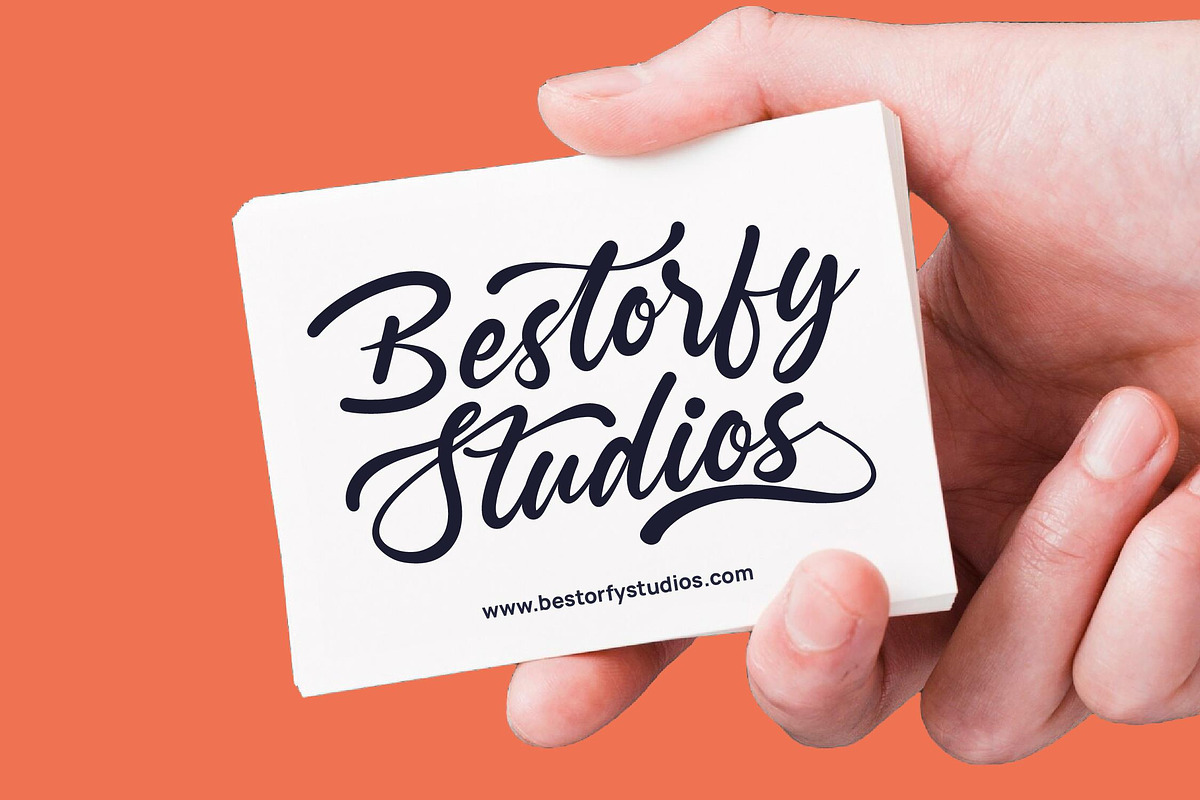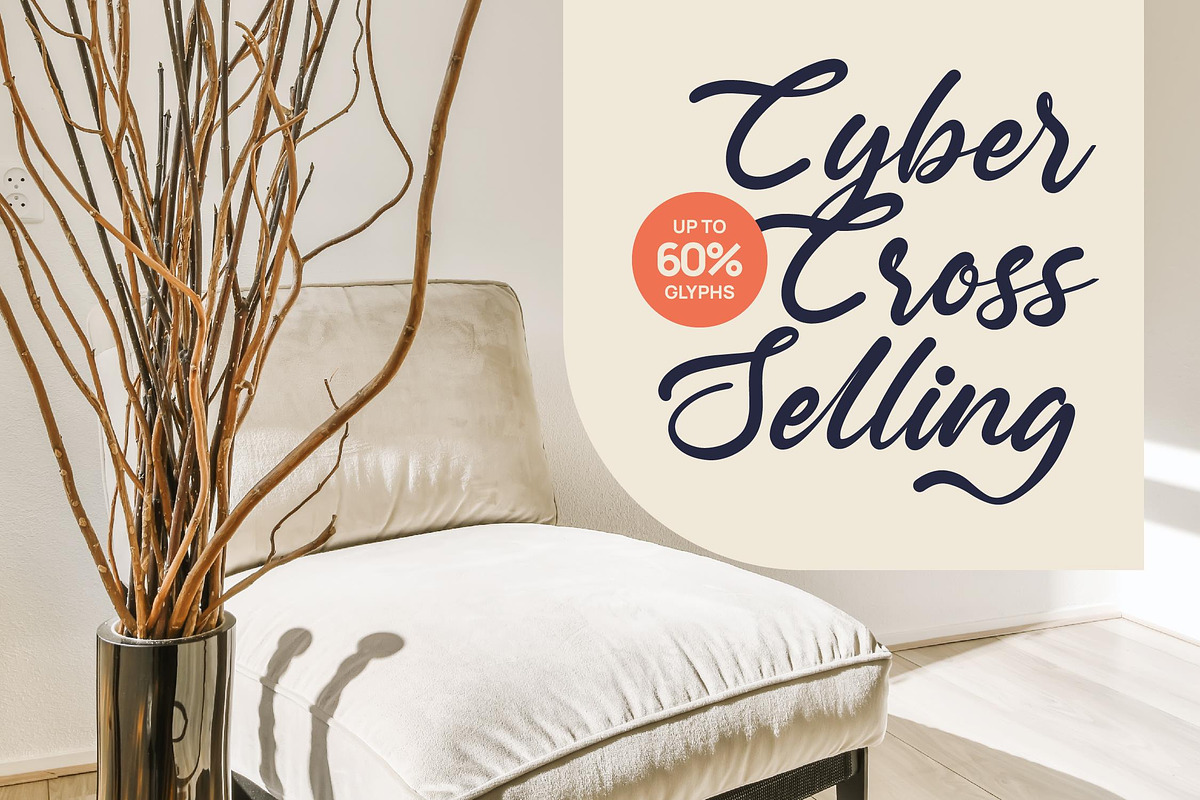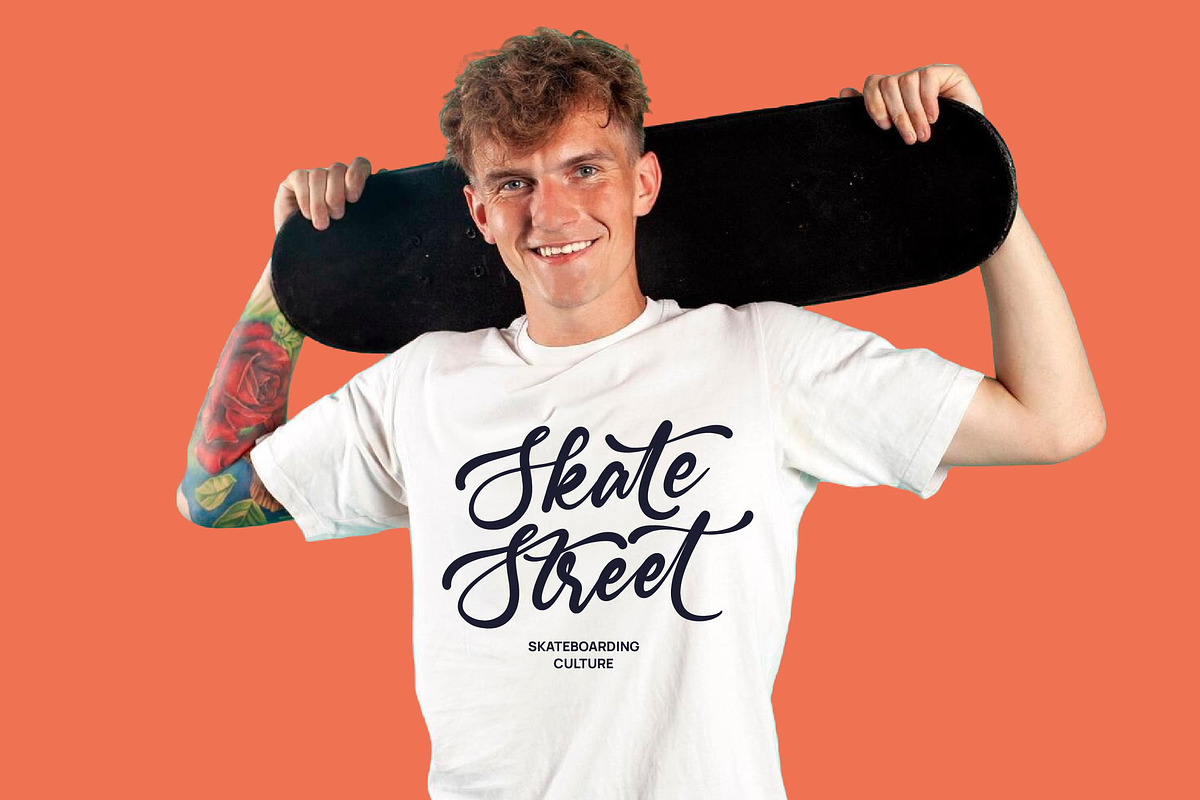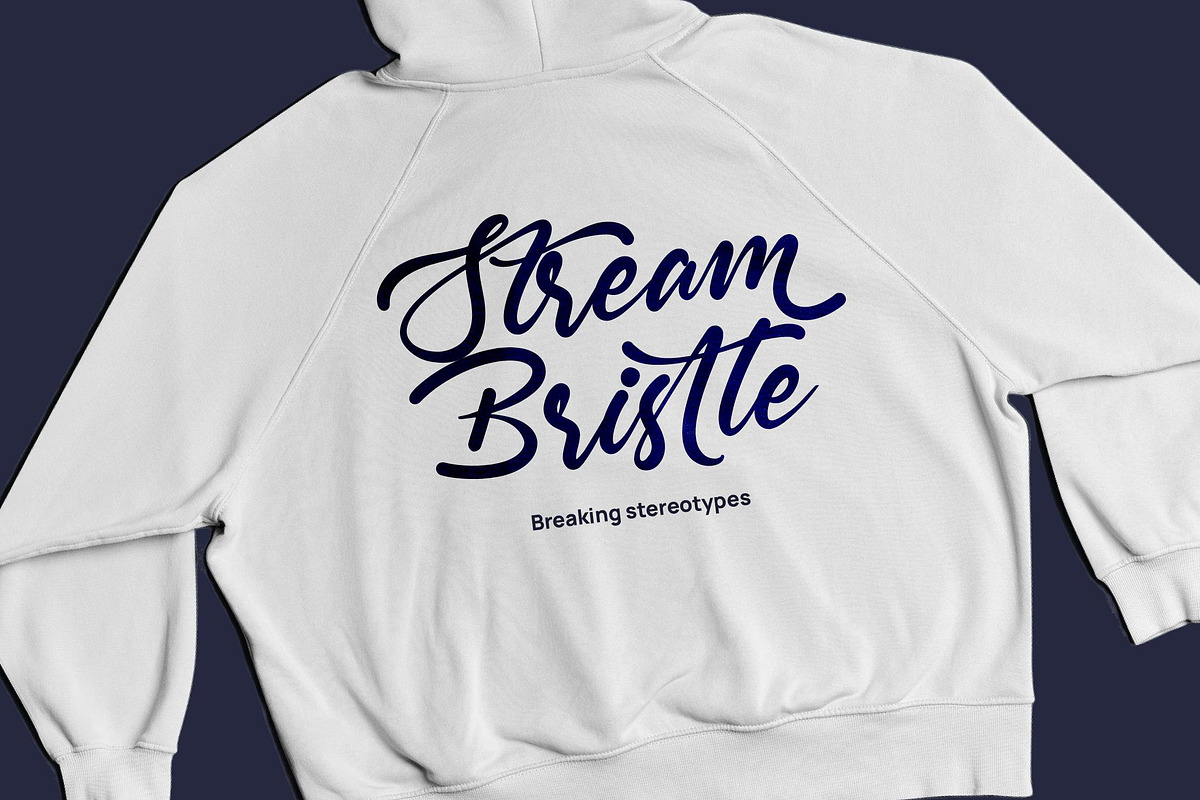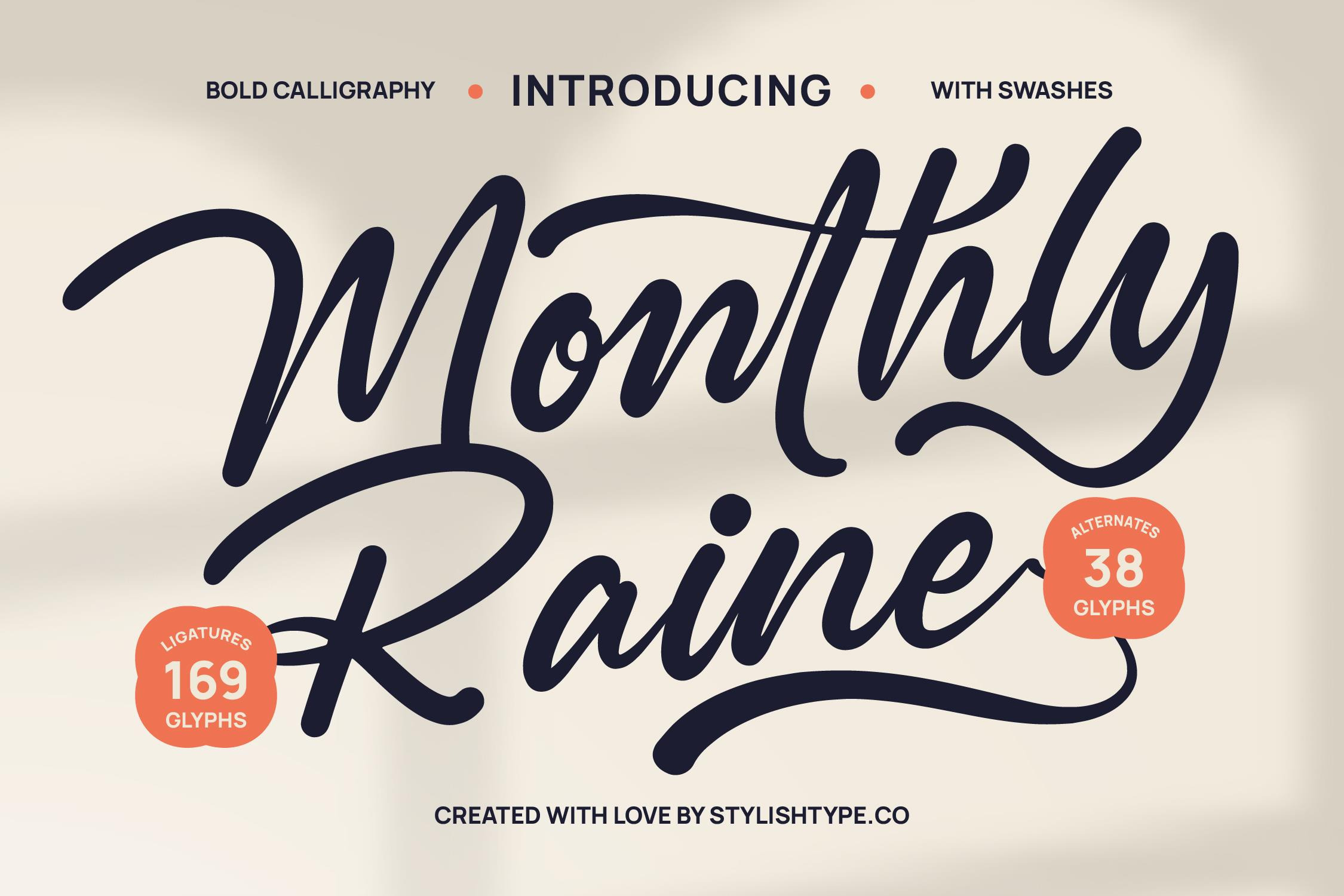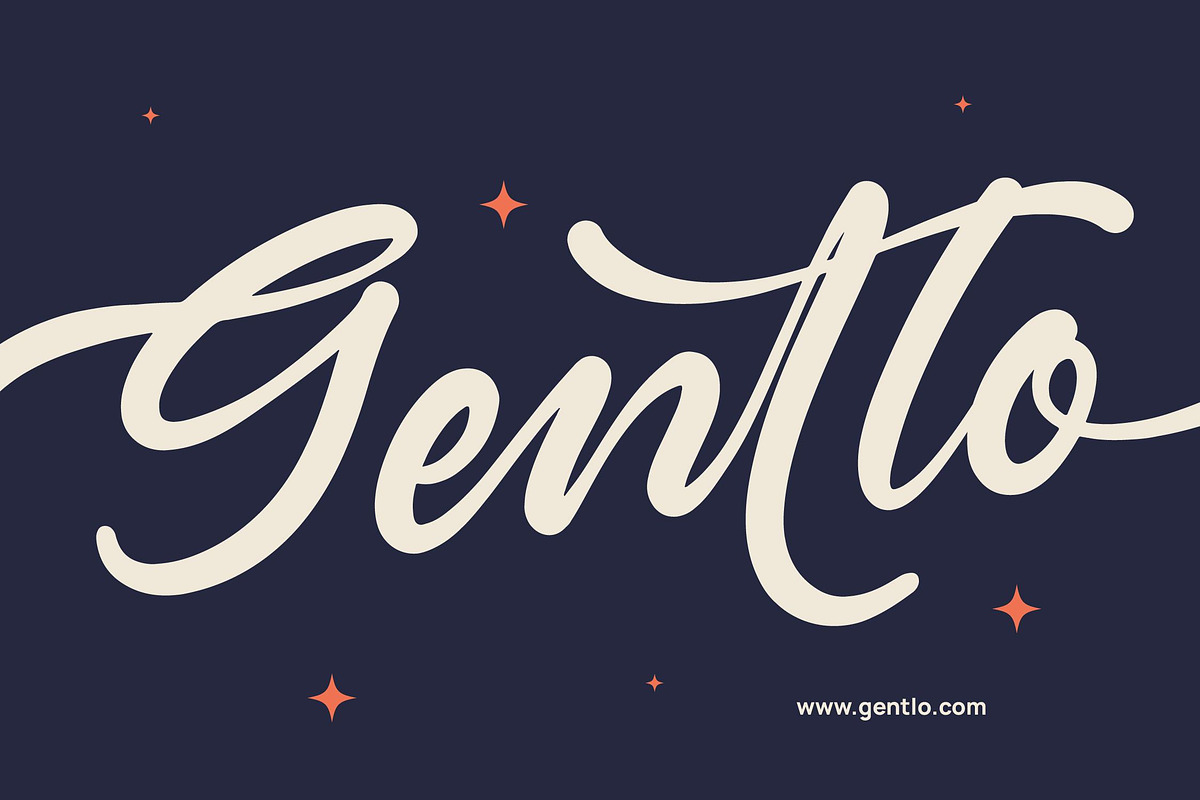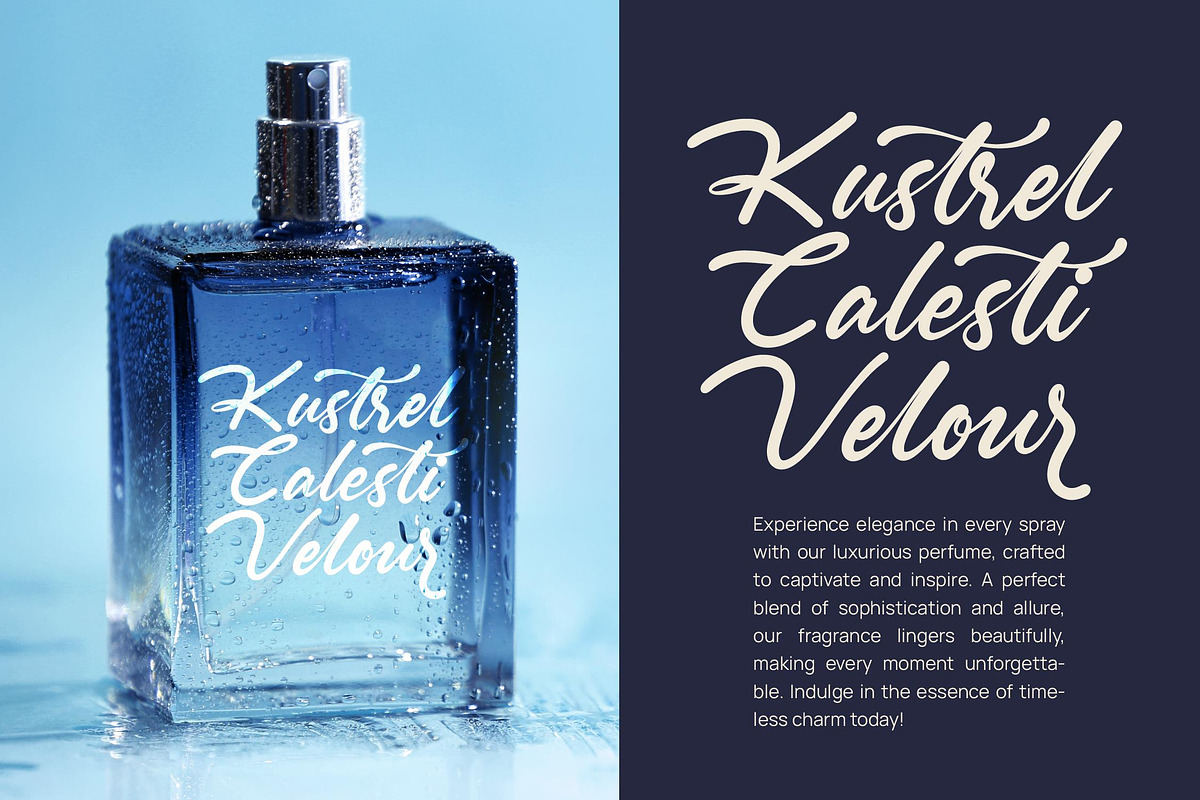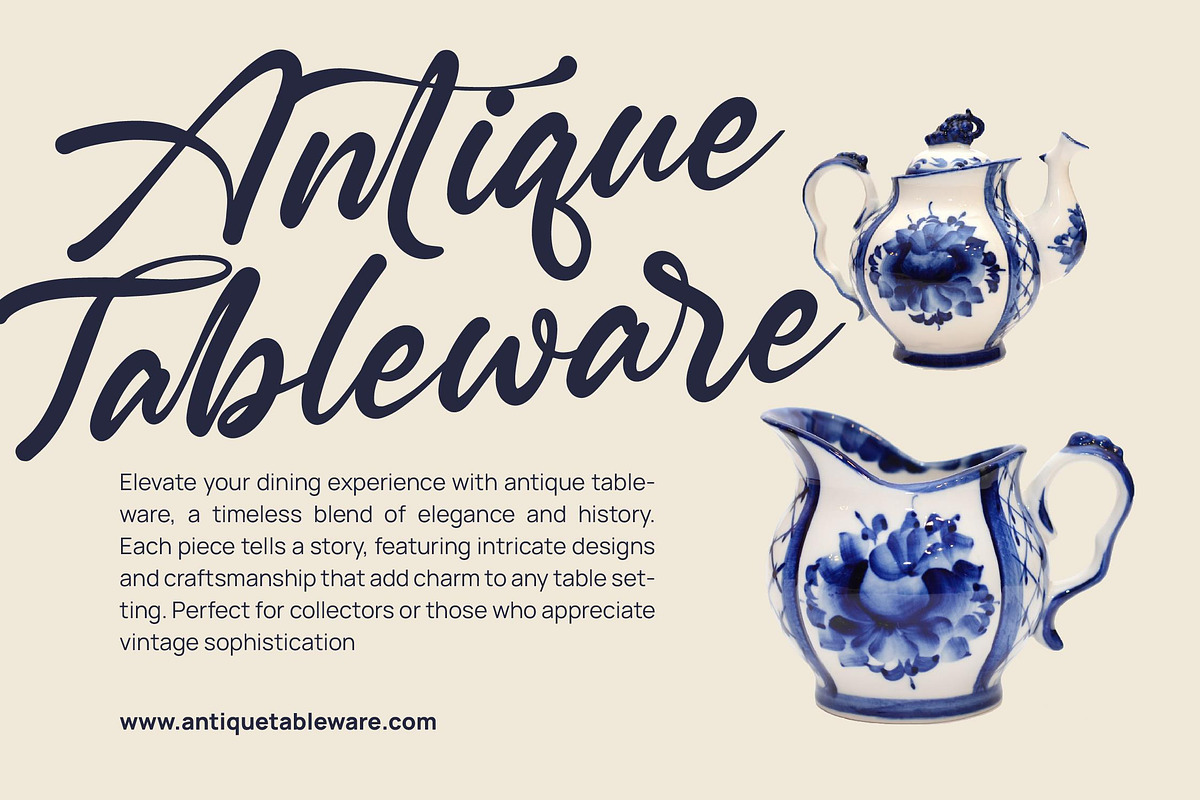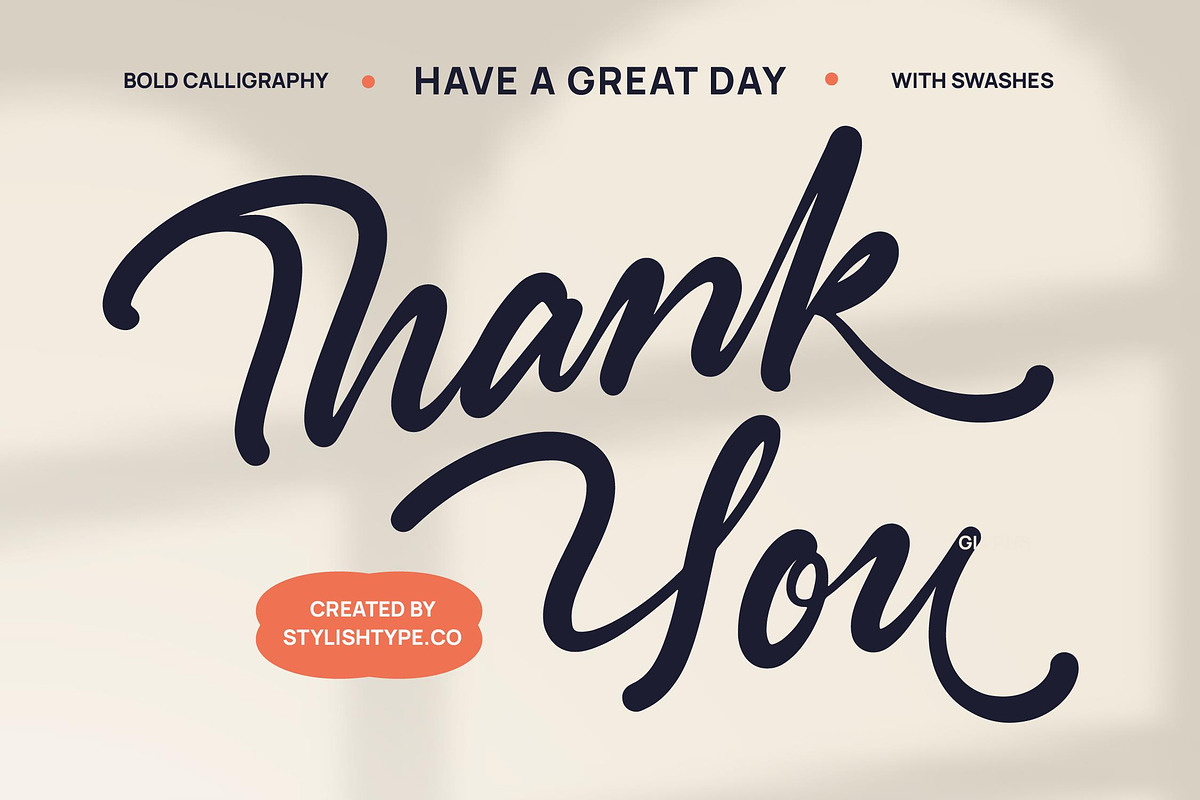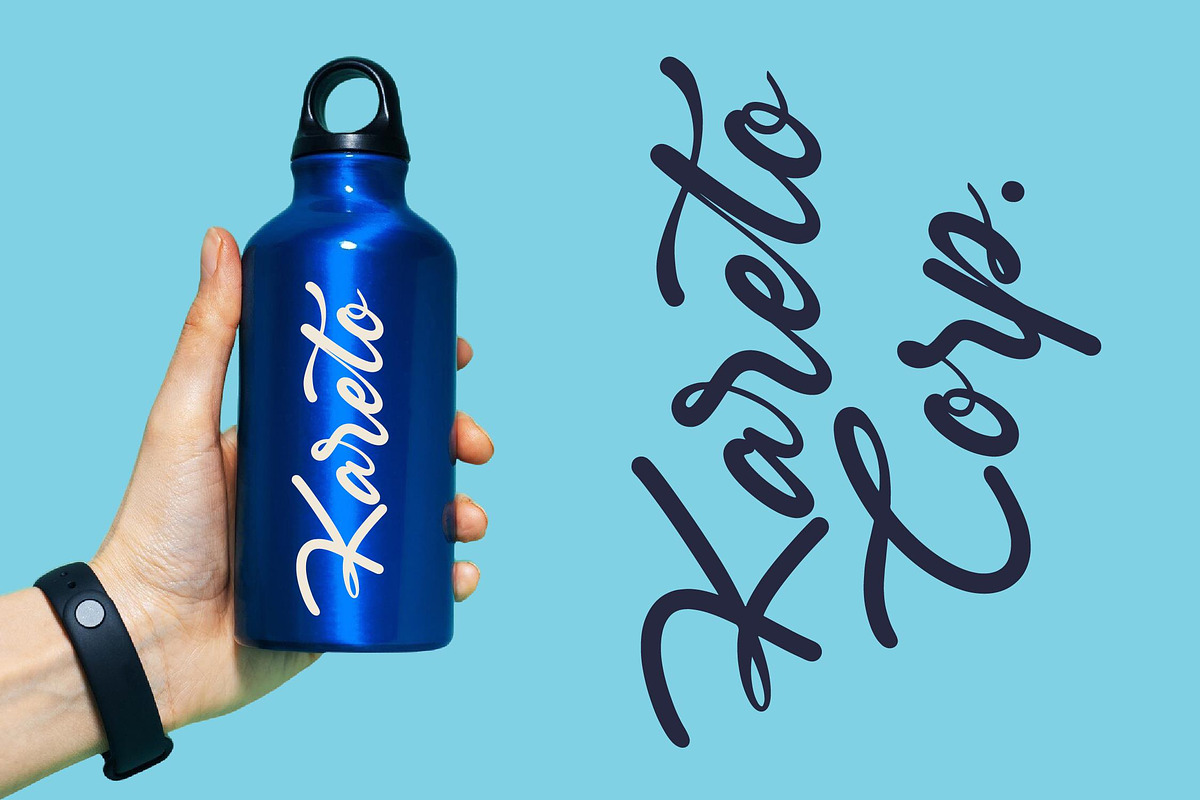
Monthly Raine Bold Calligraphy Font
Monthly Raine - Bold Calligraphy Font , from Stylishtype.Co , Suitable for any projects such as: logos, branding projects, homeware designs, product packaging, mugs, quotes, posters, shopping bags, t-shirts, book covers, name card, invitation cards, greeting cards, label, photography, watermark, special events, and all your other luxury and beautiful projects that need a Luxury Script taste.
- 169 Ligature 38 Alternates & Swashes